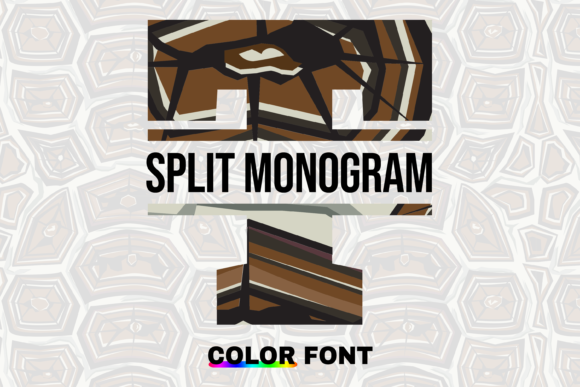
**Dive into a World of Whimsy with Turtle Split: The Cutest Font Family**
In a world where fonts often take a backseat, Turtle Split emerges as a breath of fresh air—a font family that'll ignite your creativity and transform your designs into masterpieces of joy. With its delightful blend of whimsical turtles and playful elements, Turtle Split is more than just a font; it's an invitation to embark on an enchanting adventure.
This remarkable font family is a true chameleon, adapting seamlessly to a myriad of creative endeavors. Whether you're a seasoned graphic designer, a DIY enthusiast, or simply someone who loves adding a touch of whimsy to their creations, Turtle Split is your perfect companion. Its captivating turtle-themed designs will breathe life into your custom designs, handcrafted projects, and any creative pursuit that yearns for a dash of charm.
**A Splash of Color: Turtle Split Meets SVG**
Get ready to witness a harmonious fusion of art and technology as Turtle Split joins forces with SVG (Scalable Vector Graphics). This dynamic duo unlocks a world of vibrant possibilities, allowing you to infuse your designs with captivating colors and eye-catching details. The SVG compatibility of Turtle Split empowers you to create stunning graphics, logos, social media posts, and more, all bursting with life and personality.
**The Perfect Playground for Your Creativity**
With Turtle Split as your trusty sidekick, your creativity knows no bounds. Unleash your imagination and let the cute turtle designs take center stage. Whether you're crafting personalized invitations, designing unique T-shirts, or adding a touch of whimsy to your home décor, Turtle Split will elevate your creations to new heights. Its versatility extends beyond personal projects; businesses can harness the power of Turtle Split to craft captivating logos, brochures, and marketing materials that leave a lasting impression.
**Embrace the Turtle Split Advantage**
Join the growing legion of creative minds who have discovered the magic of Turtle Split. Experience the boundless possibilities it offers and let your imagination run wild. With Turtle Split as your font of choice, every design endeavor transforms into an enchanting journey.